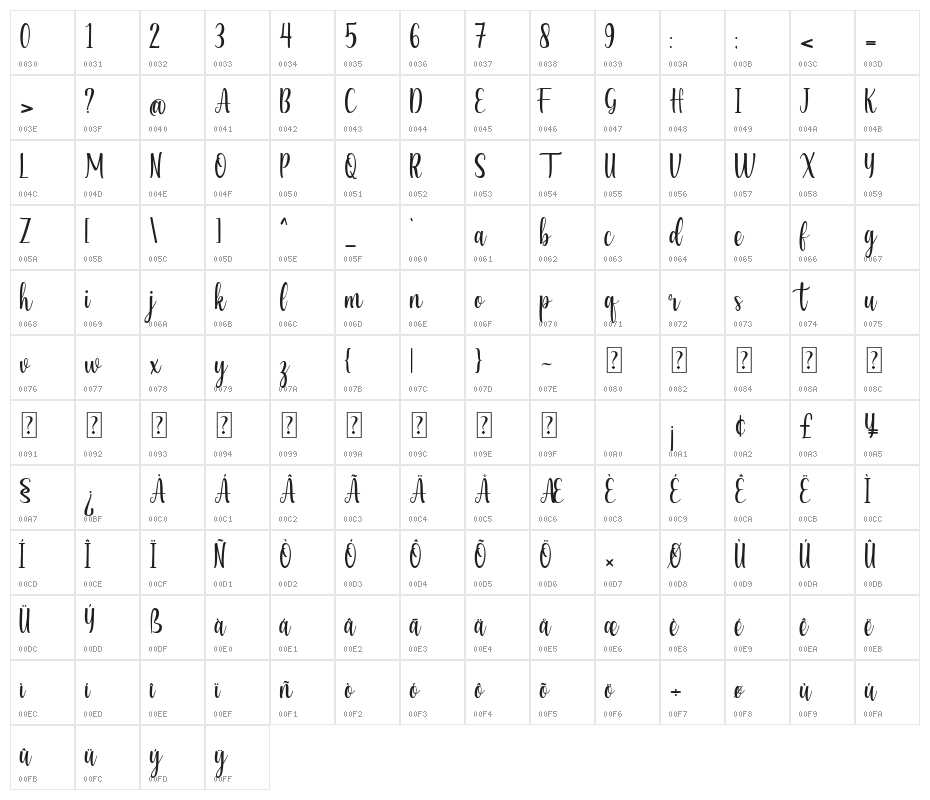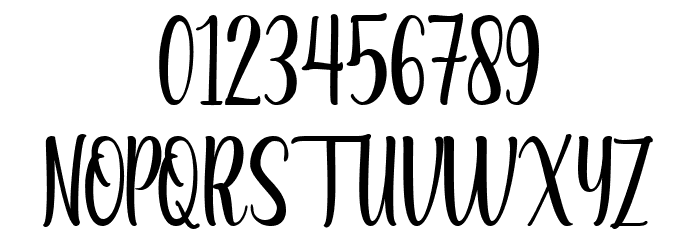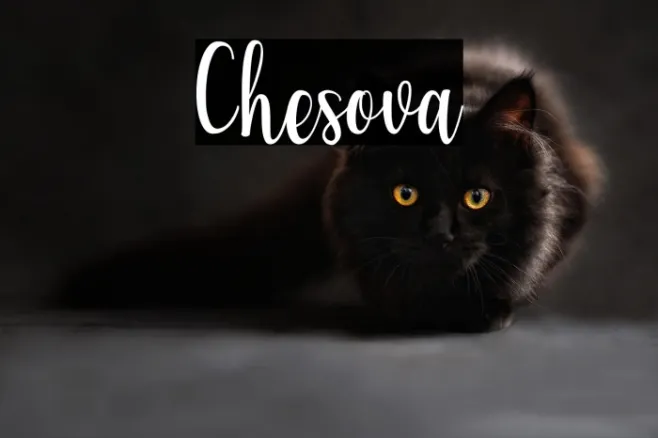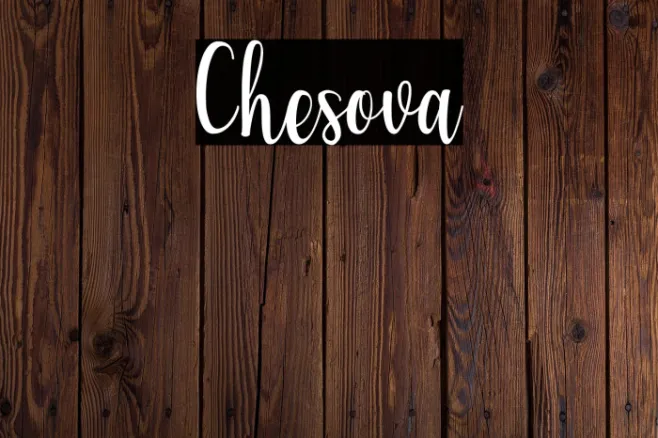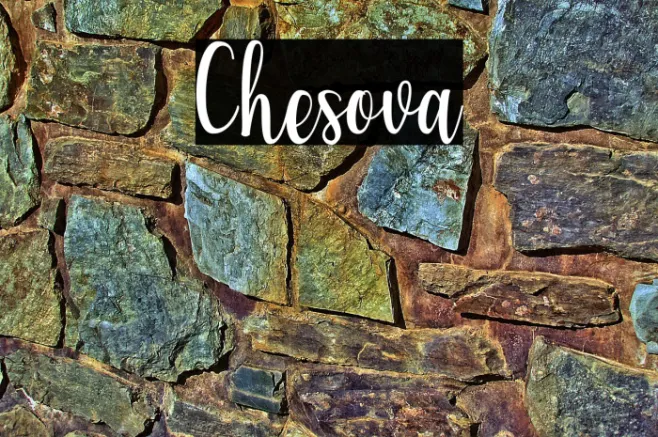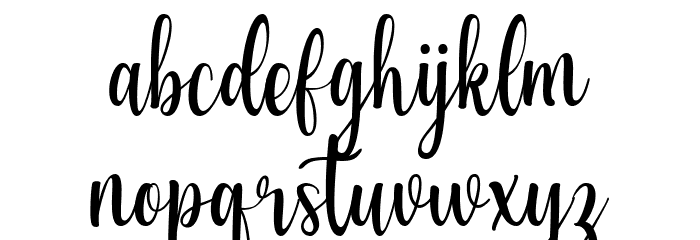
Chesova Font
Chesova Description
This font features a playful and elegant script style with a handwritten appearance. The uppercase letters are tall and slightly narrow, with a smooth flow and subtle curves that add a touch of sophistication. The lowercase letters maintain a consistent style, with loops and swashes that enhance the font's decorative nature. The numbers are clear and legible, matching the overall aesthetic. Special characters are included, maintaining the same whimsical feel. This font is ideal for projects that require a personal and artistic touch, such as invitations, greeting cards, and branding materials.